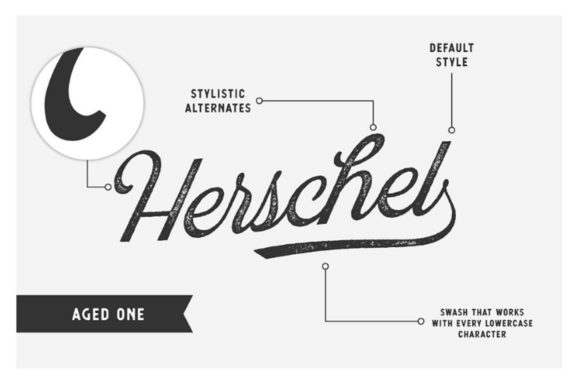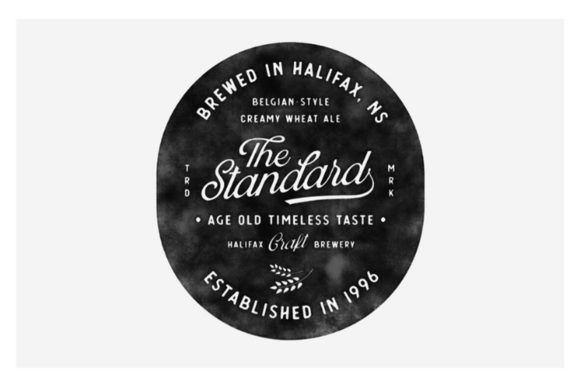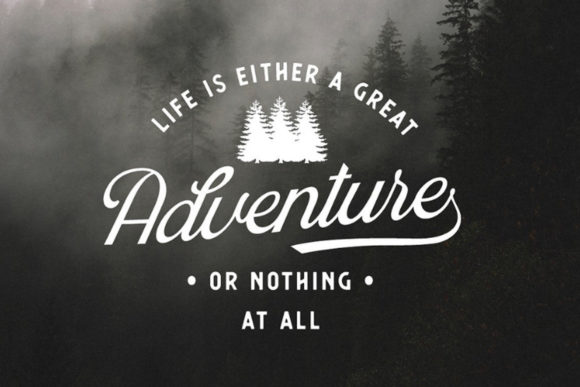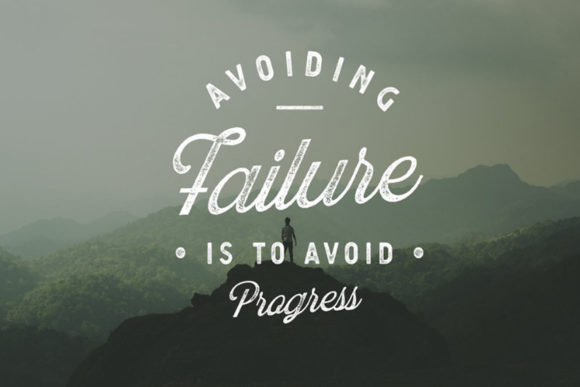
The Quest for the Perfect Script
Do you remember that moment when you’re browsing through a design inspiration board and you stumble upon a font that just makes your heart skip a beat? For many designers, that’s the moment when the creative juices start flowing, and the ideas begin to pour in. For me, that moment came when I discovered the Blackstone Font – a magical script font that exudes elegance and sophistication.
| 👤 Author | Hustle Supply Co. |
The Blackstone Font is a masterfully crafted combination of timeless elegance and authentic calligraphy, making it the perfect addition to any designer’s toolkit. Its classic style, infused with a friendly feel, sets it apart from other fonts in its class. Whether you’re working on a high-end branding project or a personal design piece, the Blackstone Font is sure to elevate your work to new heights.
As a valuable resource for designers, the Blackstone Font offers unparalleled flexibility and versatility, allowing you to create original and outstanding designs that truly stand out. With its unique blend of classic and modern elements, this font is a game-changer for anyone looking to add a touch of sophistication to their work.
Blackstone Font Key Features
- Unique Characteristics: The Blackstone font features a unique blend of modern and vintage elements, with a distinctive x-height and a range of ligatures that add to its charm and readability.
Designer Review: Blackstone Font
Overall, I think Blackstone Font is a solid choice for any project that requires a modern, clean aesthetic. Here’s what I like about it:
- ✨ Elegant lines and subtle flair make it perfect for headings and titles
- ✨ Its versatility allows it to work well in both digital and print media
- ✨ The font’s subtle texture and nuanced weight add depth and interest
However, like any font, Blackstone isn’t without its limitations:
- ⚠️ The font may be too plain for projects that require a bold, statement-making font
- ⚠️ Some users may find the texture distracting or difficult to read at very small sizes
- ⚠️ The font’s nuances may not translate well to certain screen resolutions or devices
Overall, I think Blackstone Font is a great choice for projects that require a clean, modern aesthetic. While it may not be perfect for every project, its elegance and versatility make it a solid addition to any designer’s toolkit.
Getting the Most Out of Blackstone Font
Some tips for getting the most out of the Blackstone font include:
– Using it for headings and titles to add a touch of elegance.
– Combining it with other fonts to create a unique and eye-catching design.
– Experimenting with different font sizes and colors to add emphasis.
The Blackstone font is commonly used in:
– Luxury branding and advertising.
– High-end packaging design.
– Elegant wedding invitations and stationery.